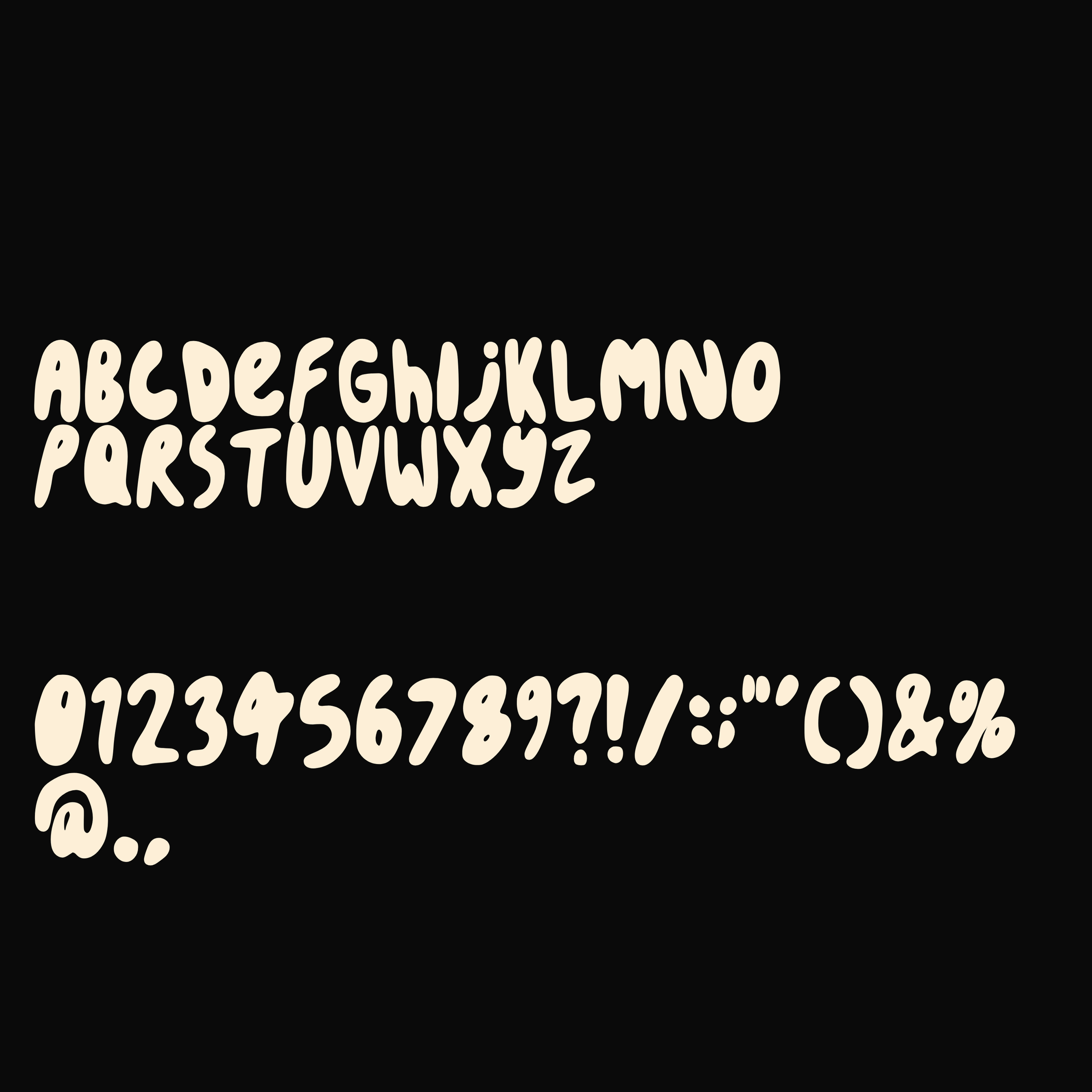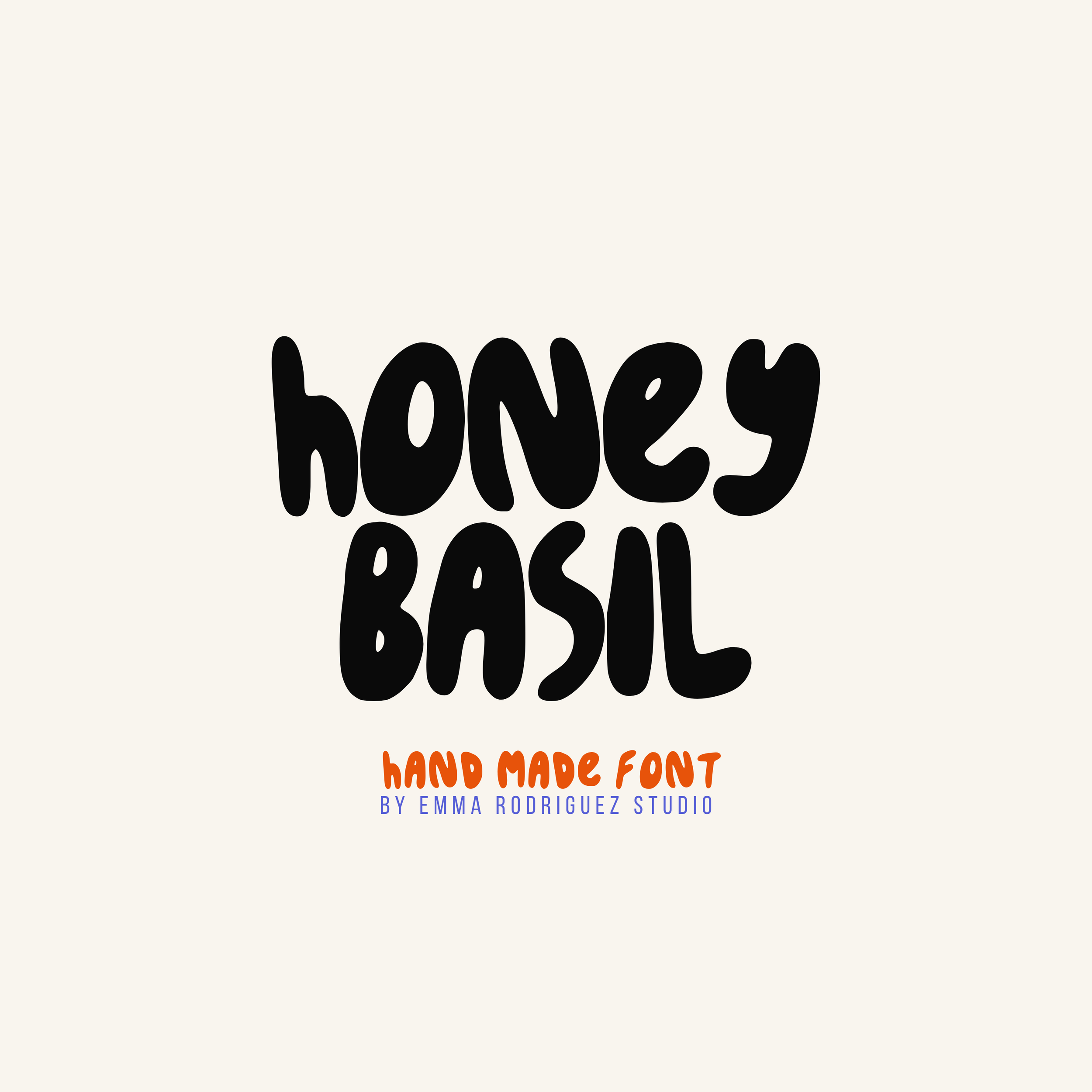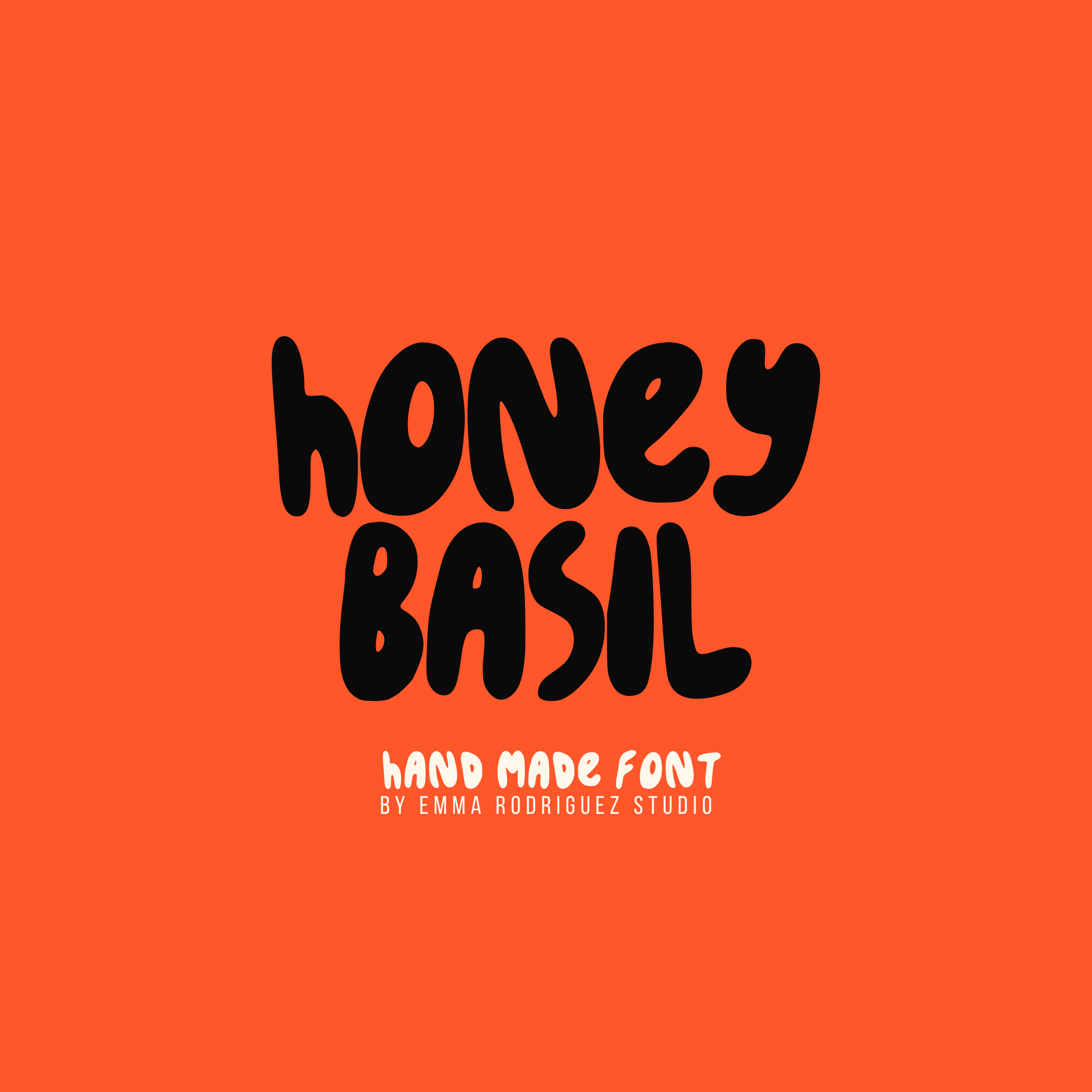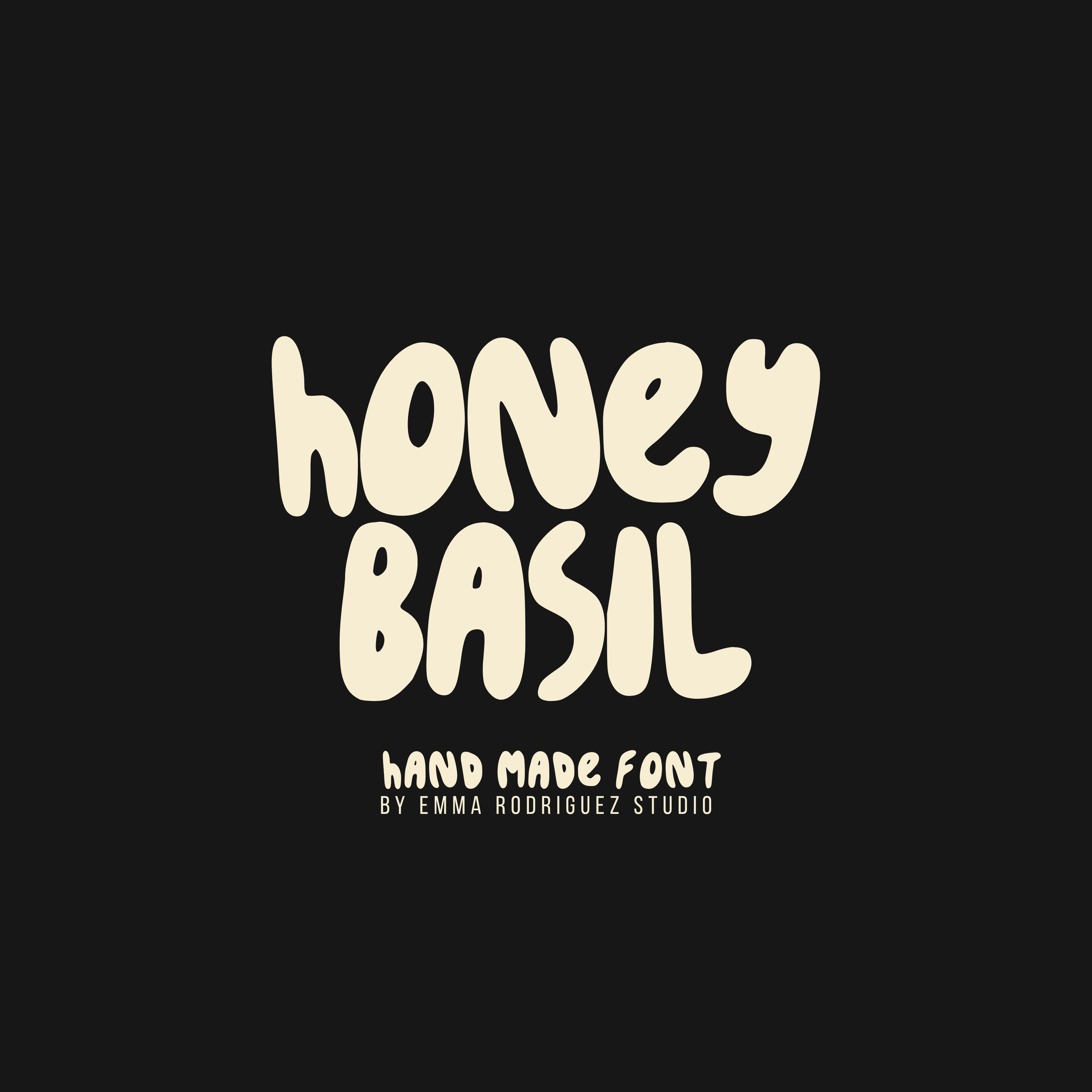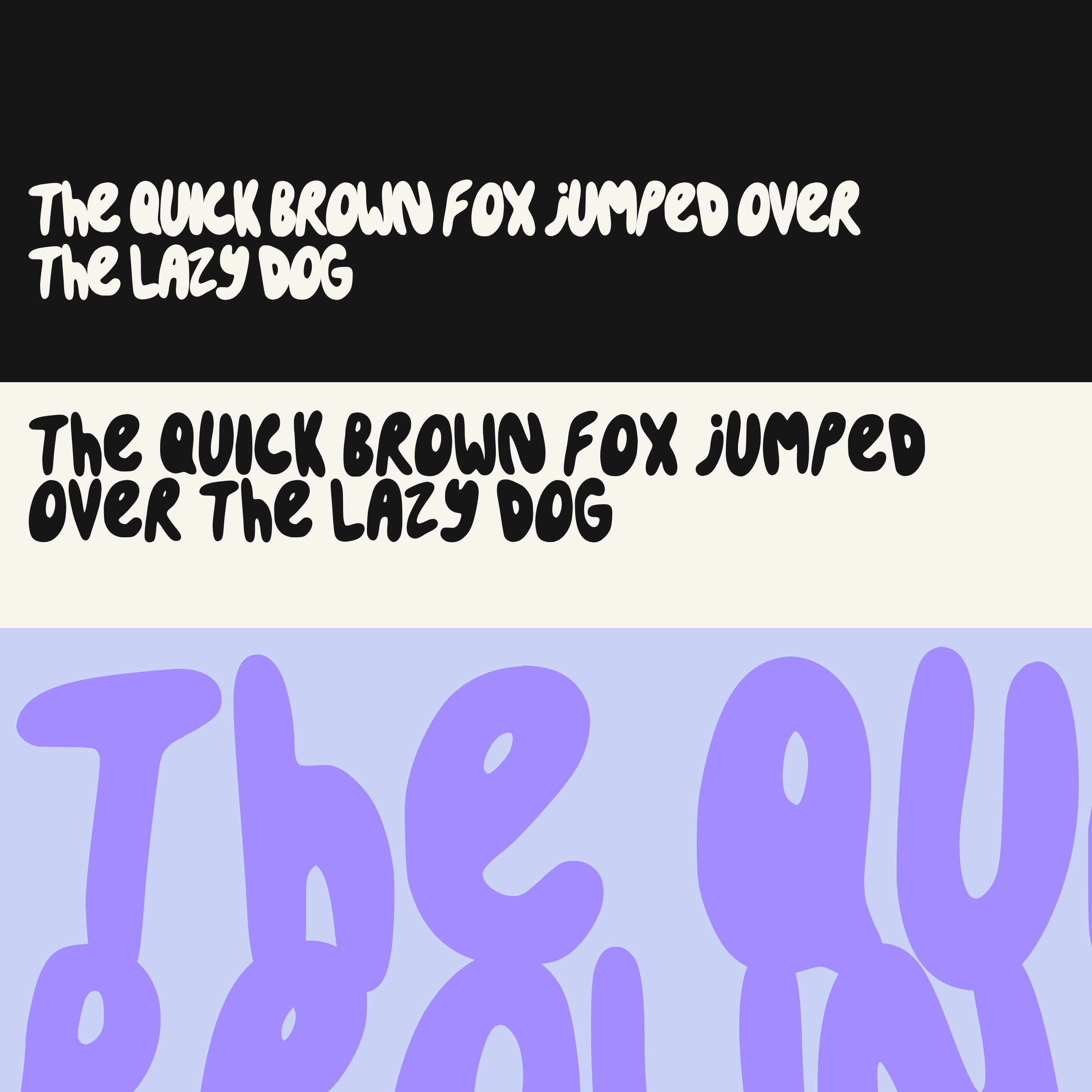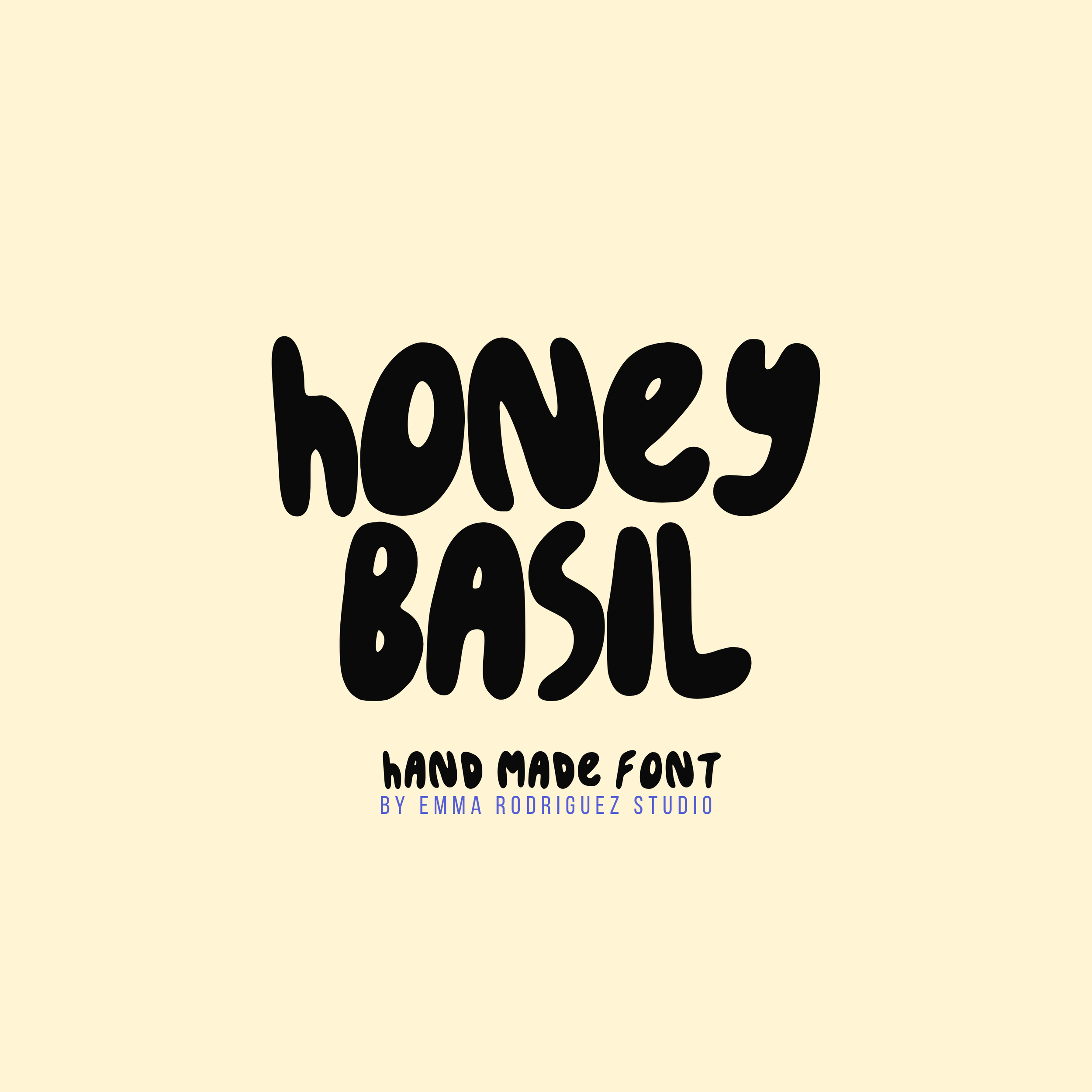
Honey Basil is a playful lowercase handmade font with soft, wobbly letterforms for branding, posters, packaging, merchandise and social media design. Includes OTF and TTF files with personal and commercial use.
Honey Basil is a playful handmade display font with soft, irregular letterforms and a bold hand-drawn finish. Designed for graphic designers, illustrators, artists, branding designers, small businesses and Etsy sellers, it adds warmth and personality to creative work without feeling overly polished or generic.
Its rounded shapes, uneven proportions and handmade imperfections are intentional, giving the font a friendly, expressive quality that works particularly well for playful branding, retro-inspired typography and personality-driven design.
Perfect for:
• Branding and logos
• Posters and art prints
• Packaging and product labels
• Merchandise and apparel
• Social media graphics
• Editorial headlines
• Food and drink branding
• Children’s and playful designs
• Small business marketing
• Mixed case letter set
• Numbers and basic punctuation
Fonts by Emma Rodriguez Studio are made to have personality. Expect naive shapes, wonky details, playful imperfections and type that doesn’t take itself too seriously. They’re not designed for clean, minimal branding. They’re for bold, quirky, maximalist projects that need something a little stranger, sillier and more expressive.